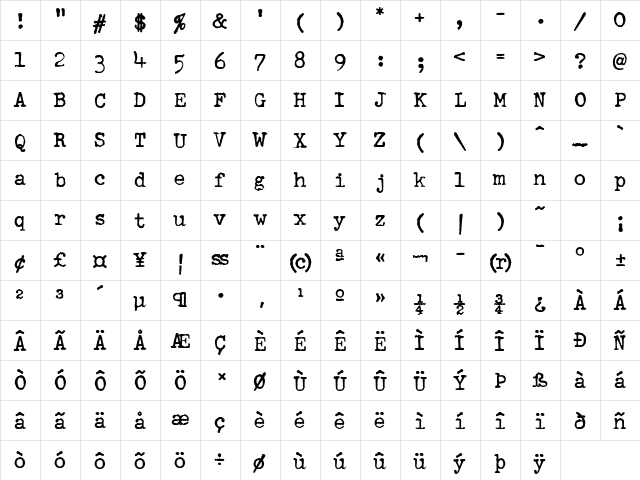
Schmutz ICG Cleaned Regular
Design Context for Schmutz ICG Cleaned Typeface
Schmutz ICG Cleaned is a composed and adaptable typeface that performs quietly and consistently across a wide range of design contexts.